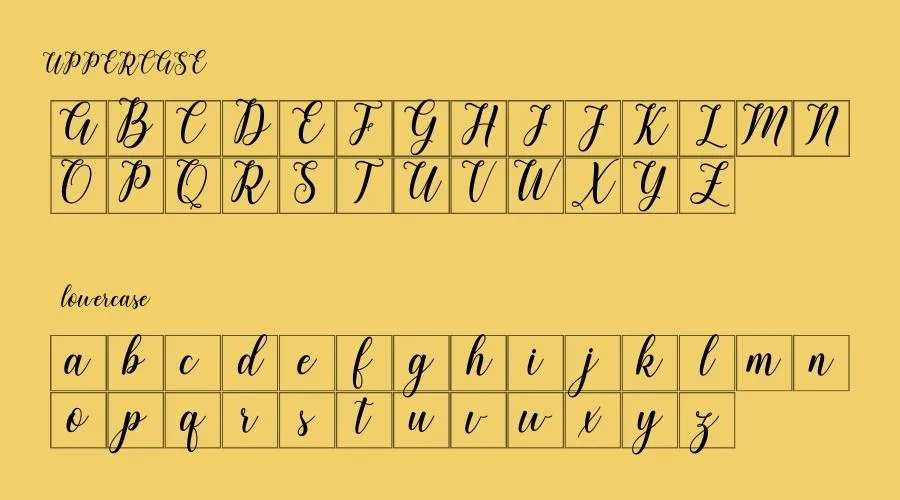
About My Dream Font
The My Dream Font was invented by Zikril lah. He is a famous graphic designer born in 1964 and published this typeface in 1999 with a unique texture. This font is under the category of the calligraphic texture family.
This modern font was published through Suza Studio. Due to its style and unique appearance, it can be compared with Trattatello Font and make attractive projects.